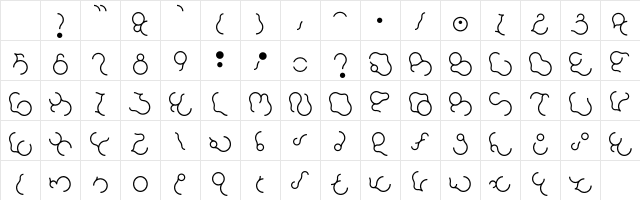
Complete Paresser ExtraLight glyph index. Displaying only characters natively supported by Paresser ExtraLight font.
Paresser is a composed and adaptable typeface that performs quietly and consistently across a wide range of design contexts. Its slender proportions lend an understated elegance to any composition.